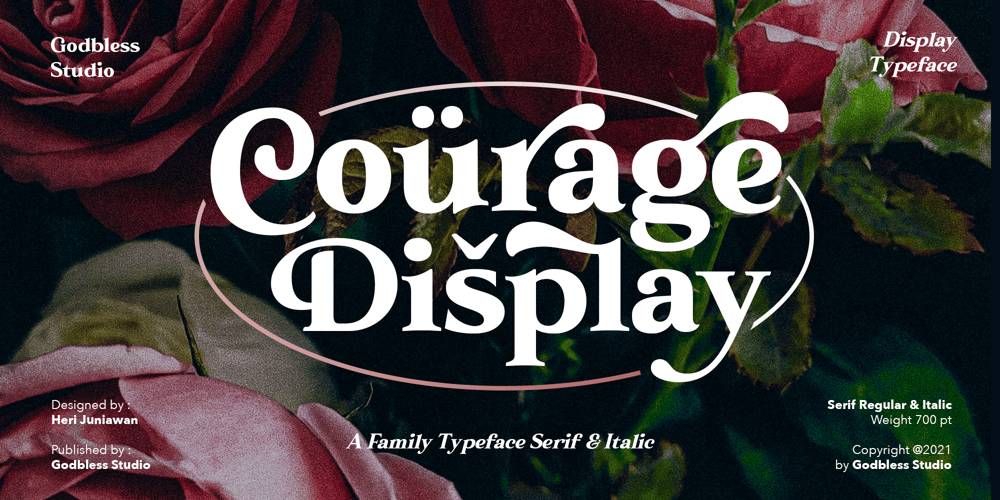
Courage Display Font Family was designed by Heri Juniawan and published by Godbless Studio. Courage Display contains 2 styles and family package options. Courage Display is a very versatile font, unique modern serif bold & Italic typeface with loads of style font that uses ligatures and many alternates. You will get classy, elegant, and certainly unique logos with this font. it is perfect for handling design jobs that cover a wide range of types such as elegant projects, luxurious branding, wedding invitations, poster design and so on.Courage Display is also included full set of:Uppercase & Lowercase letters, Stylistic Alternates Character, Multilingual Support, Numerals, Punctuation Ligatures Collection.What will you get?Courage Display Regular & Italic.Wish you enjoy our font and if you have a question, don’t hesitate to drop message & I’m happy to help.